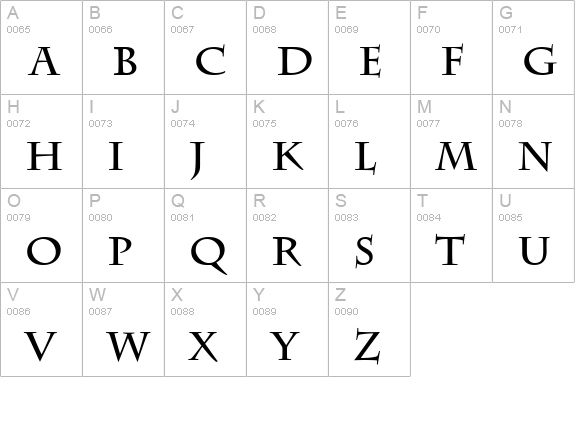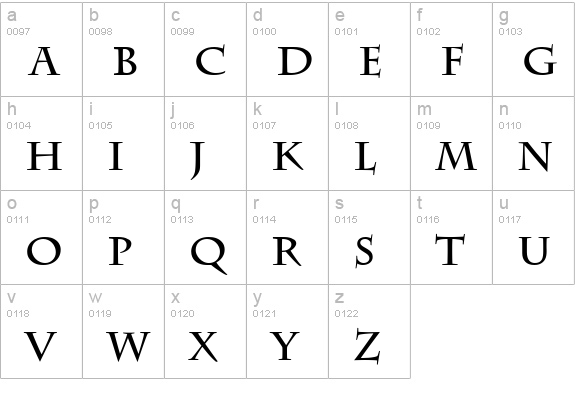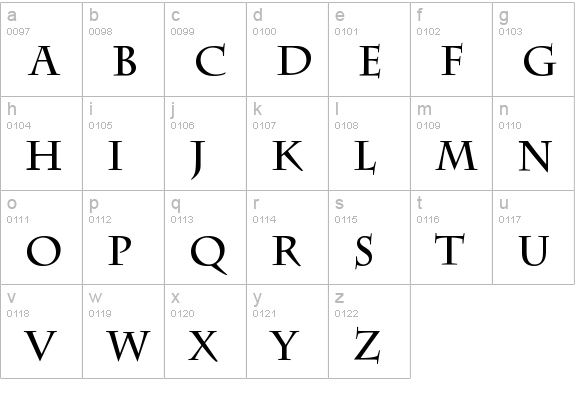
Senatus SSi Bold Font Details
Senatus SSi Bold is a strong, high-contrast variant in the Senatus typeface family \xE2\x80\x94 well suited to headlines, attention-grabbing titles, and strong calls-to-action.
Introducing Senatus SSi Bold, a powerful and charismatic font that commands attention with its bold and striking presence. This font exudes confidence and strength, making it the perfect choice for any design project that requires a touch of boldness. Senatus SSi Bold showcases a unique blend of modernity and tradition, with its bold and dynamic letterforms that effortlessly capture the essence of contemporary design while paying homage to the classic typographic styles of the past. Its clean lines and strong curves create a sense of stability and reliability, making it a versatile font that can be used for a wide range of applications. Whether you're designing a captivating headline, crafting an eye-catching logo, or creating impactful branding materials, Senatus SSi Bold will undoubtedly leave a lasting impression on your audience. Its bold and confident appearance ensures that your message will be seen and heard, making it an invaluable asset in any design arsenal. What sets Senatus SSi Bold apart is not just its impressive design, but also its accessibility. This font is freely available to download at FontsMarket.com, allowing designers and creatives alike to easily incorporate this powerful typeface into their projects. With just a few clicks, you can have Senatus SSi Bold at your fingertips, ready to elevate your designs to new heights. So, if you're searching for a font that combines boldness, versatility, and accessibility, look no further than Senatus SSi Bold. Download it for free at FontsMarket.com and unleash the power of this captivating typeface in your next design endeavor.